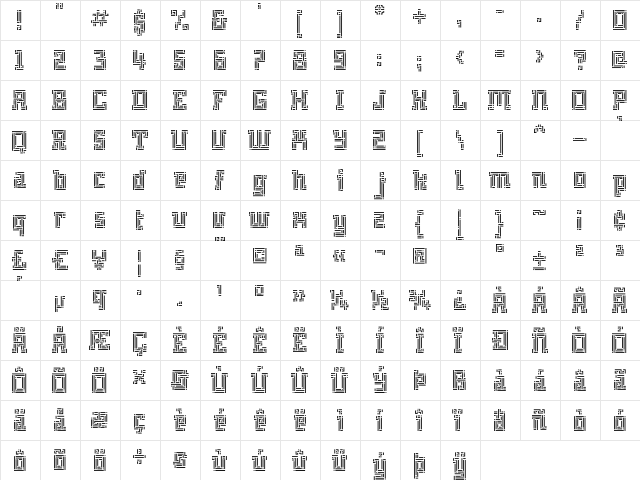
Archian Wilmos
Design Context for Archian Typeface
Archian is a composed and adaptable typeface that performs quietly and consistently across a wide range of design contexts.